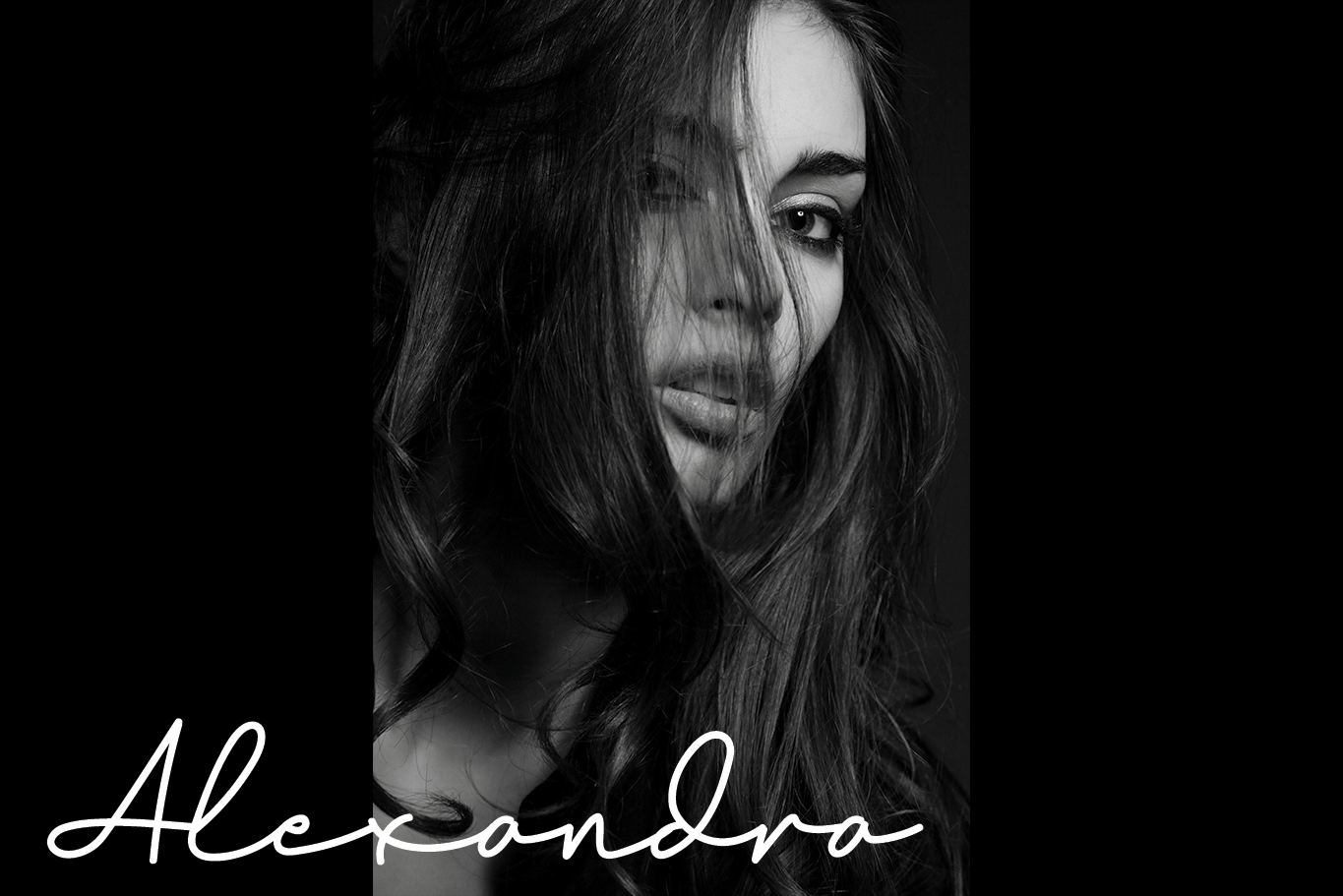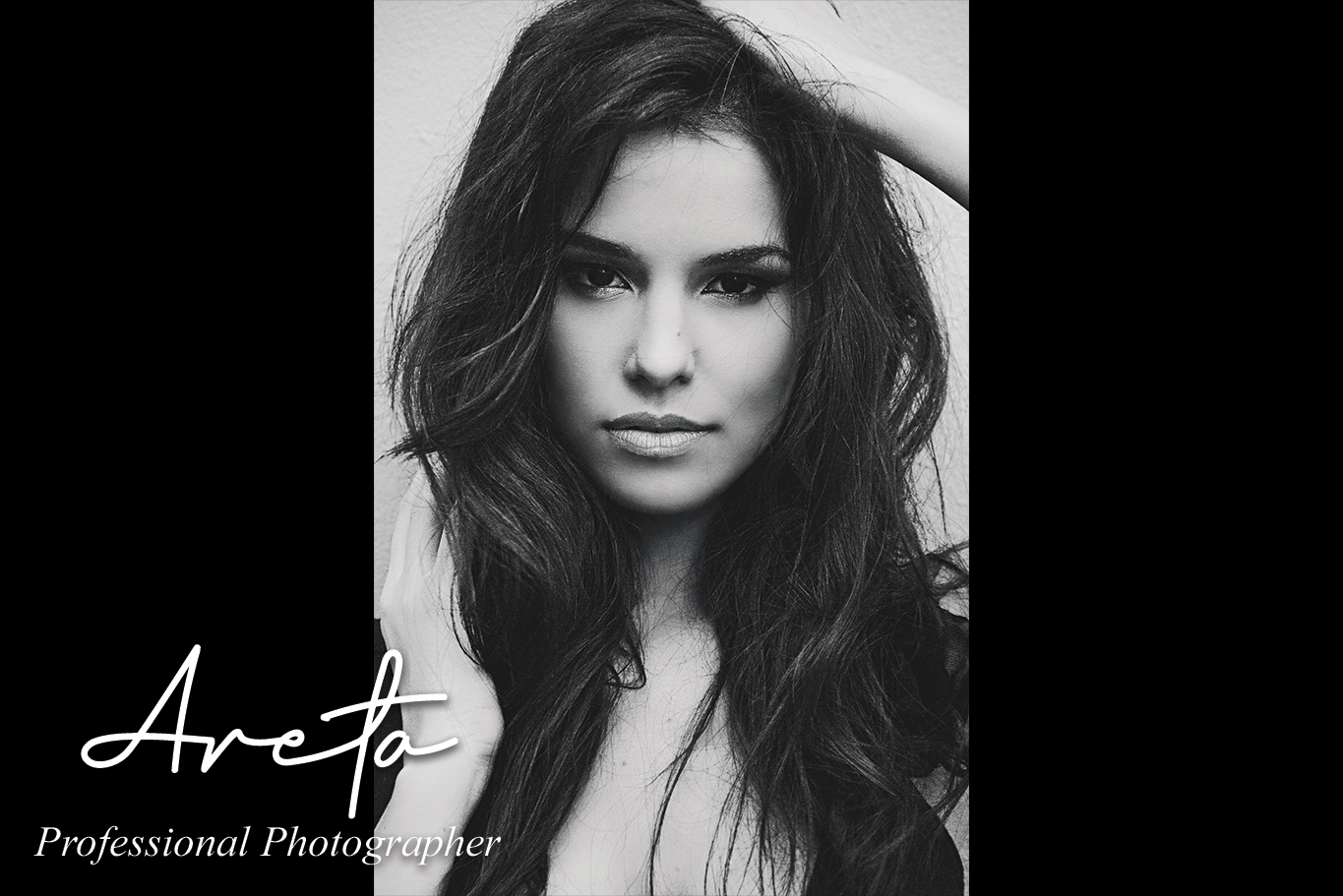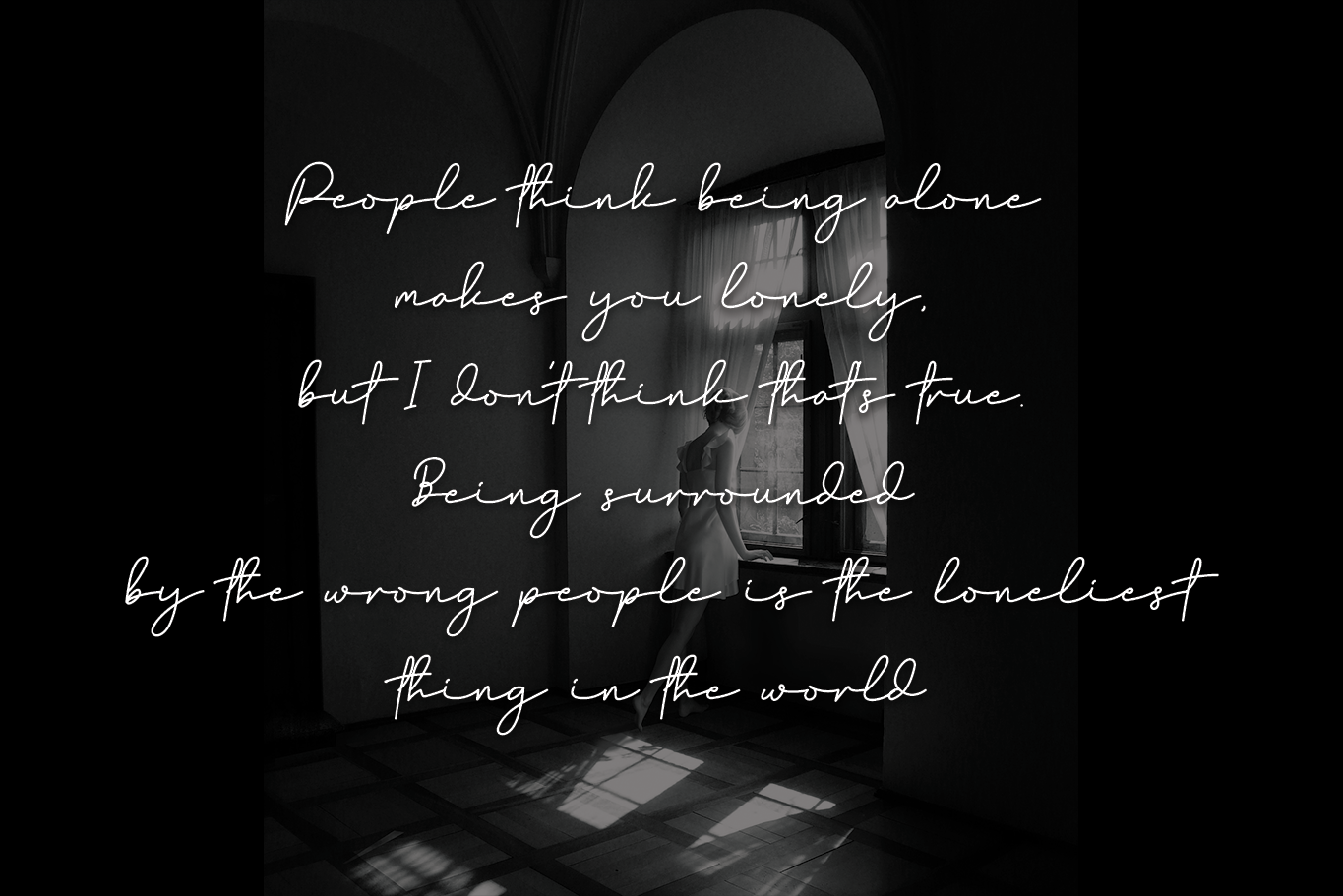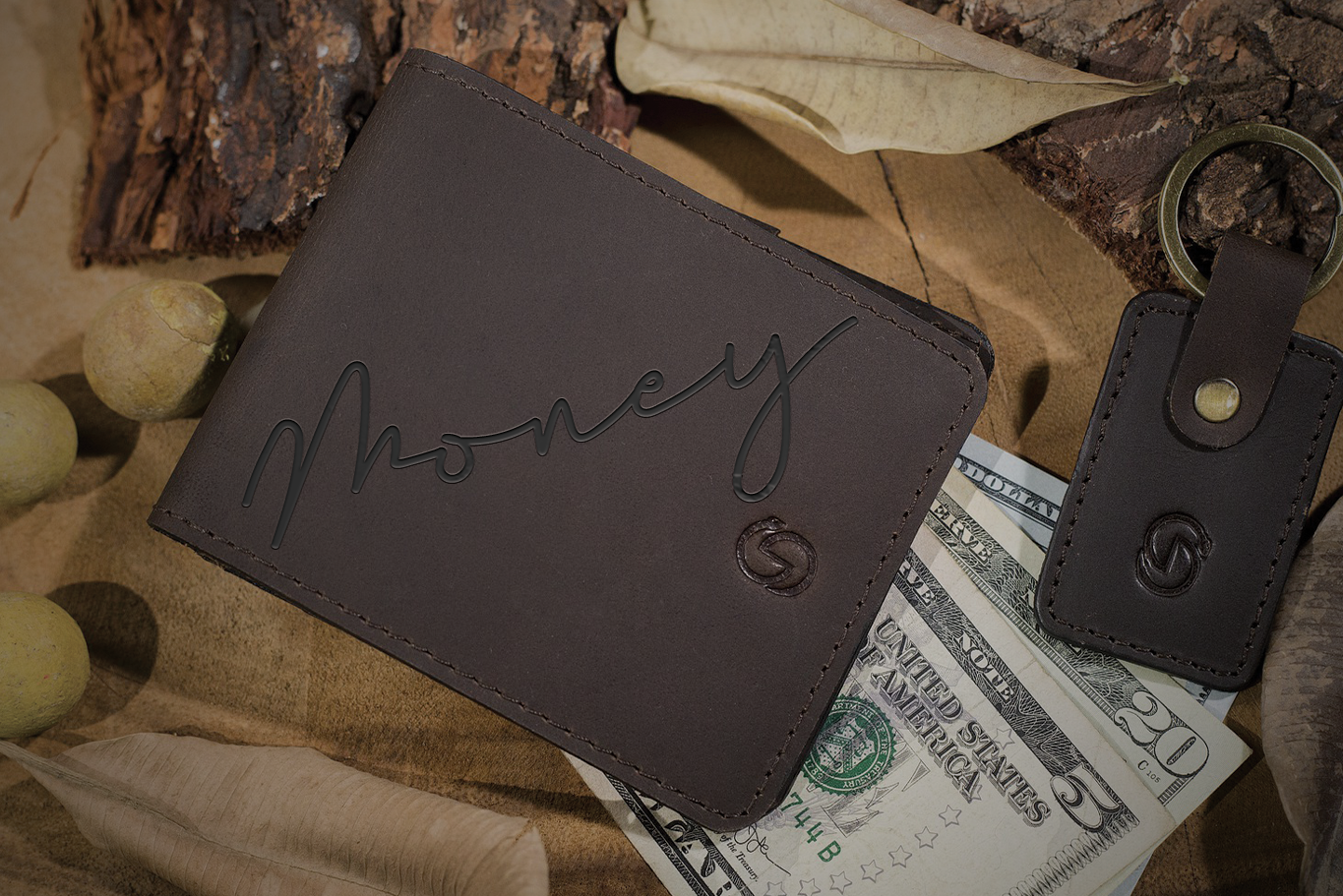
Madona Font
Madona Handwritten Font
This is a lovely and delicate script font that exudes elegance and class. This font was crafted for those who need a beautiful and refreshing look to their designs.